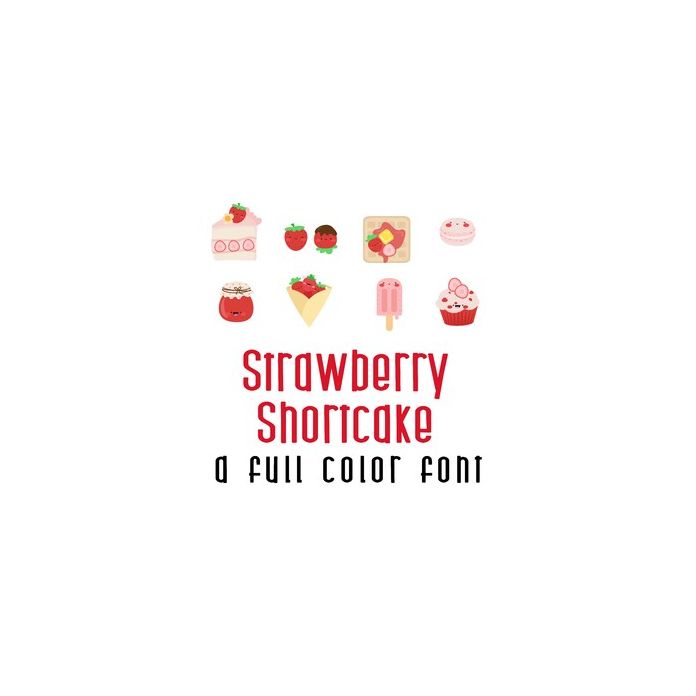
This adorable full-color doodlebat font features 26 adorable strawberry dessert items. Perfect for cards, crafts, gifts, decor, scrapbook pages, planner stickers, and more!